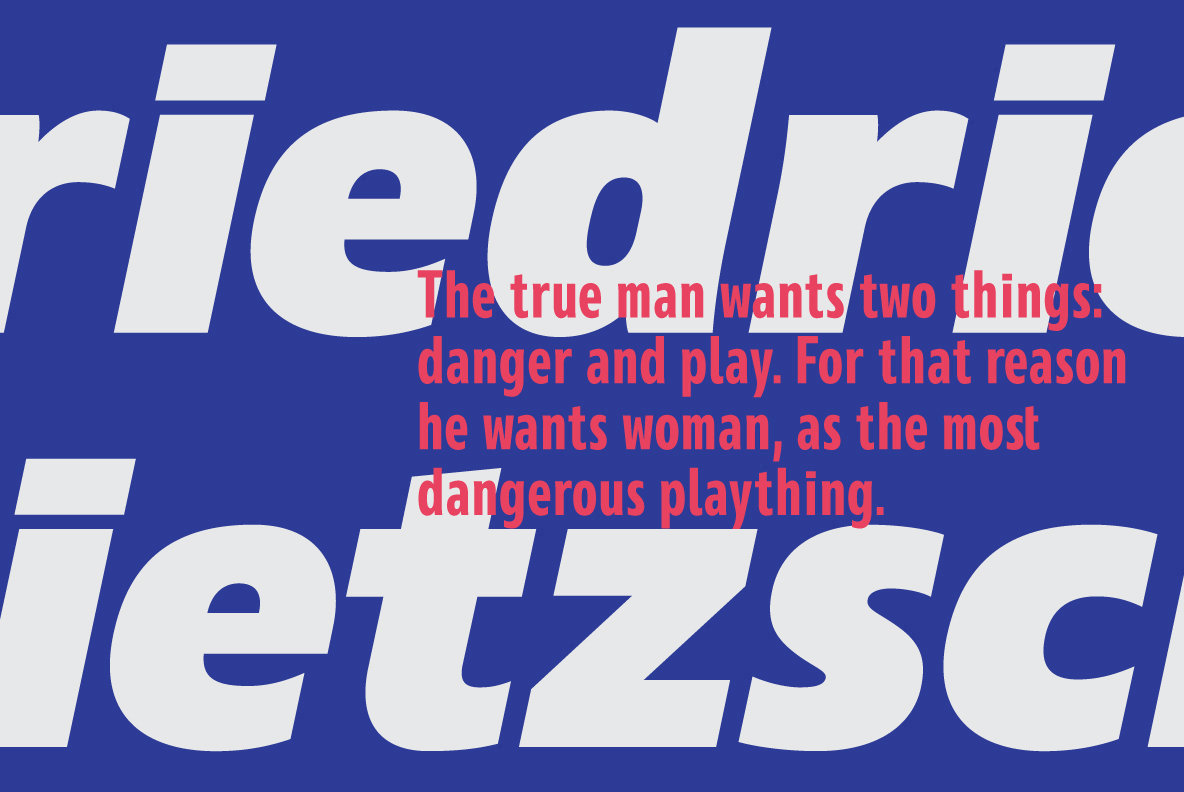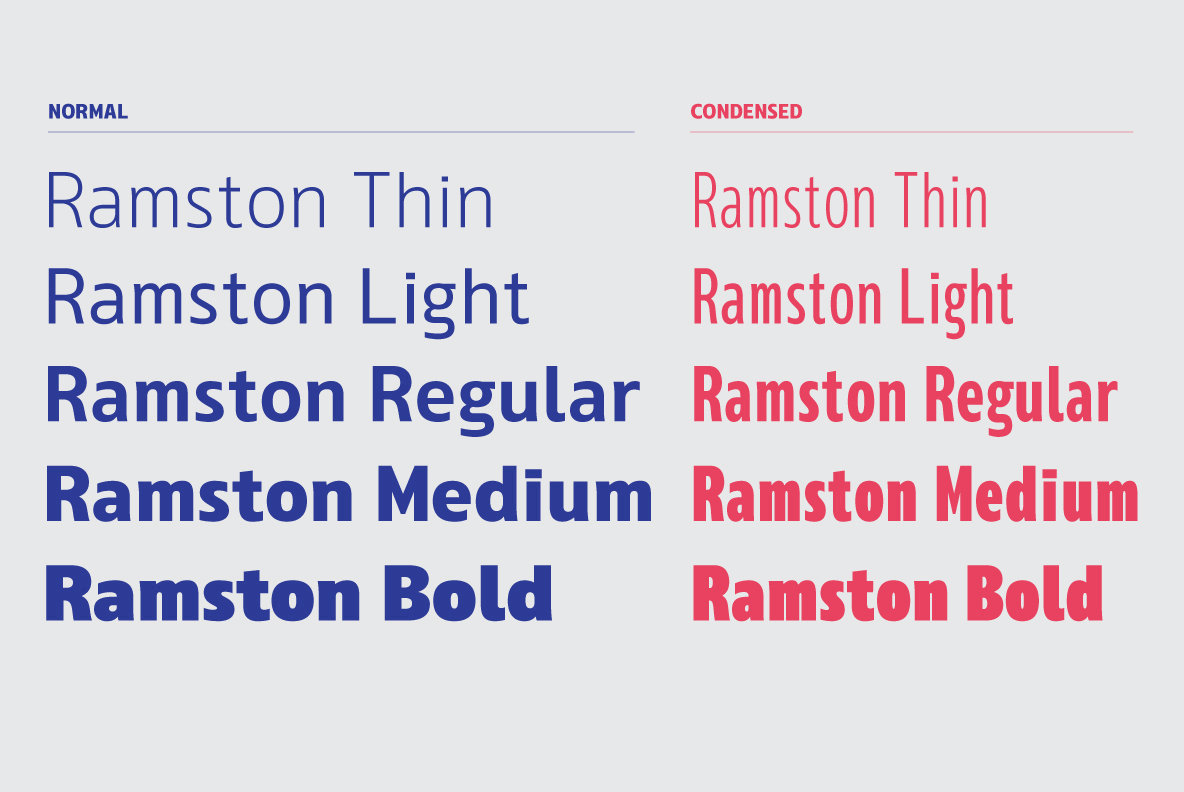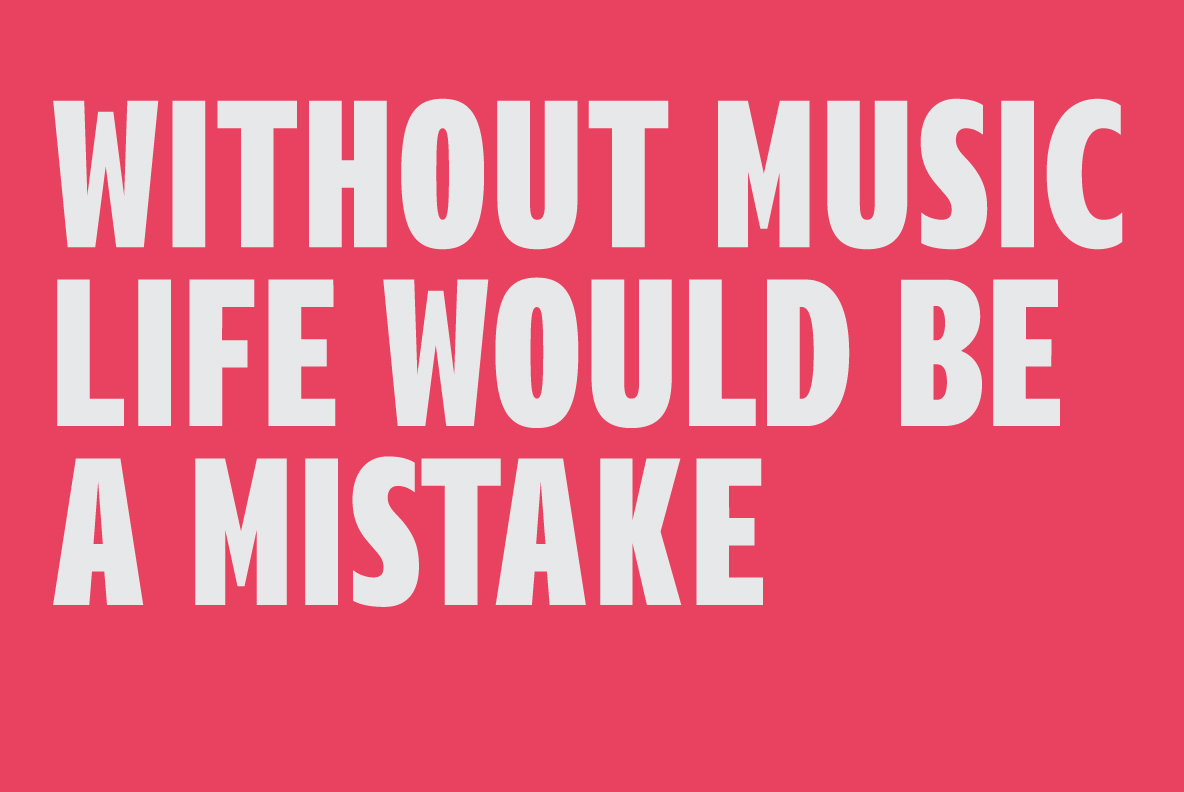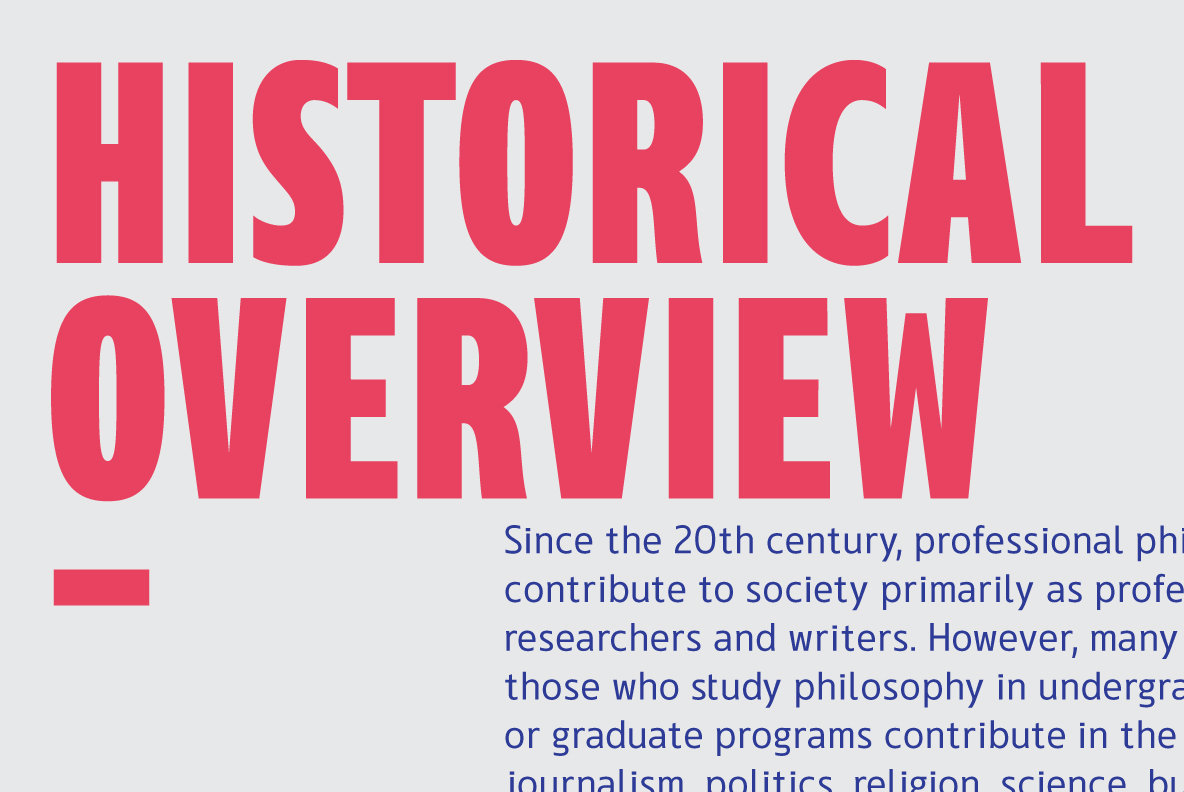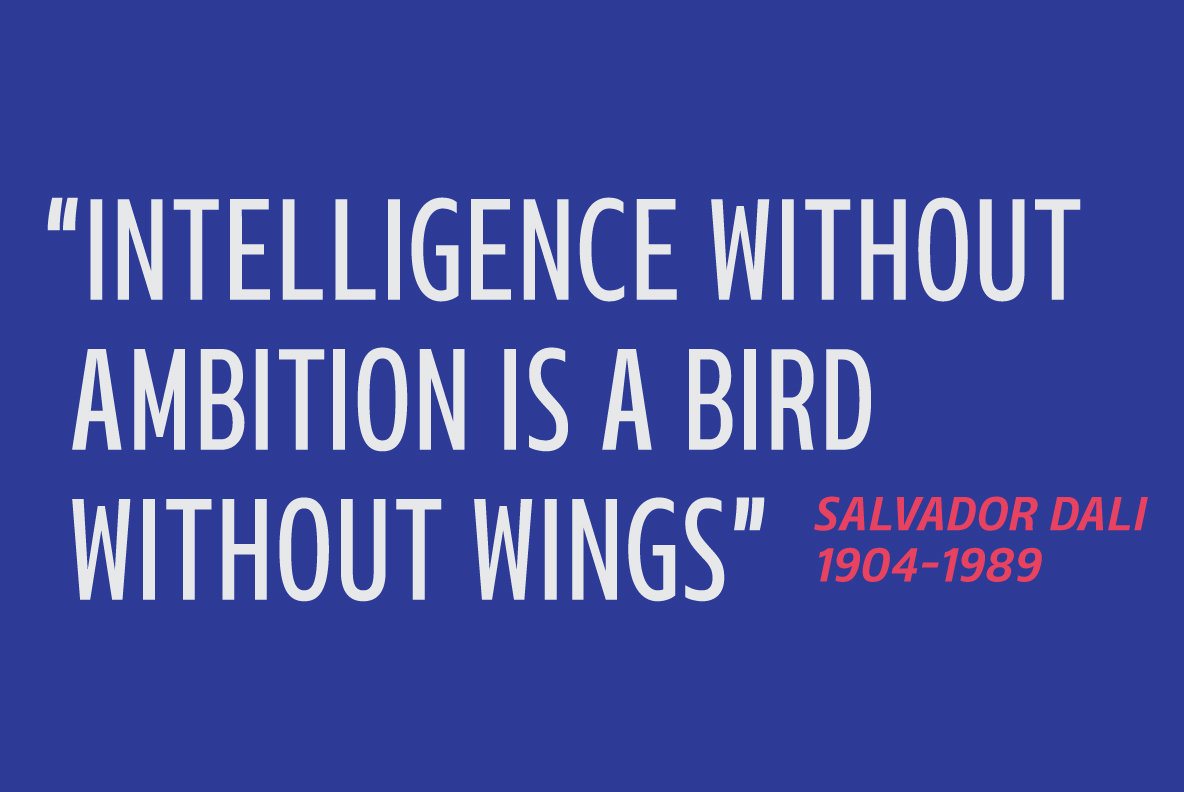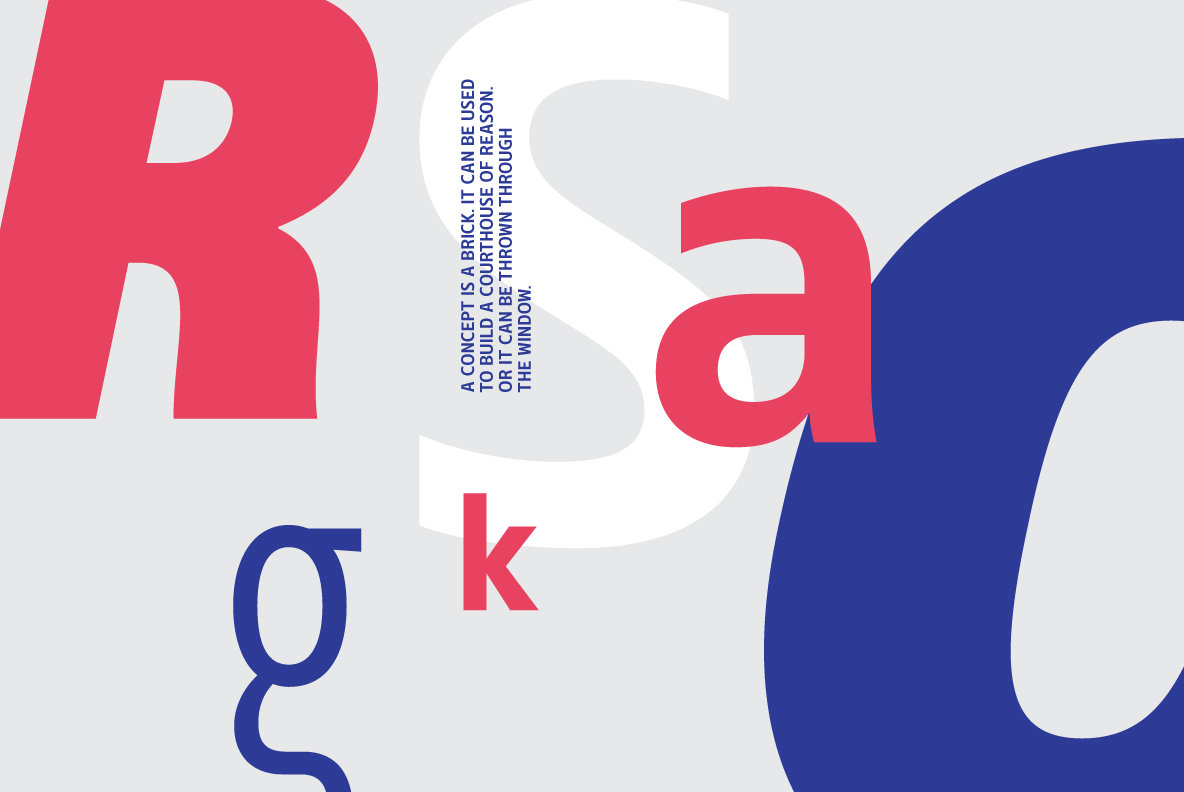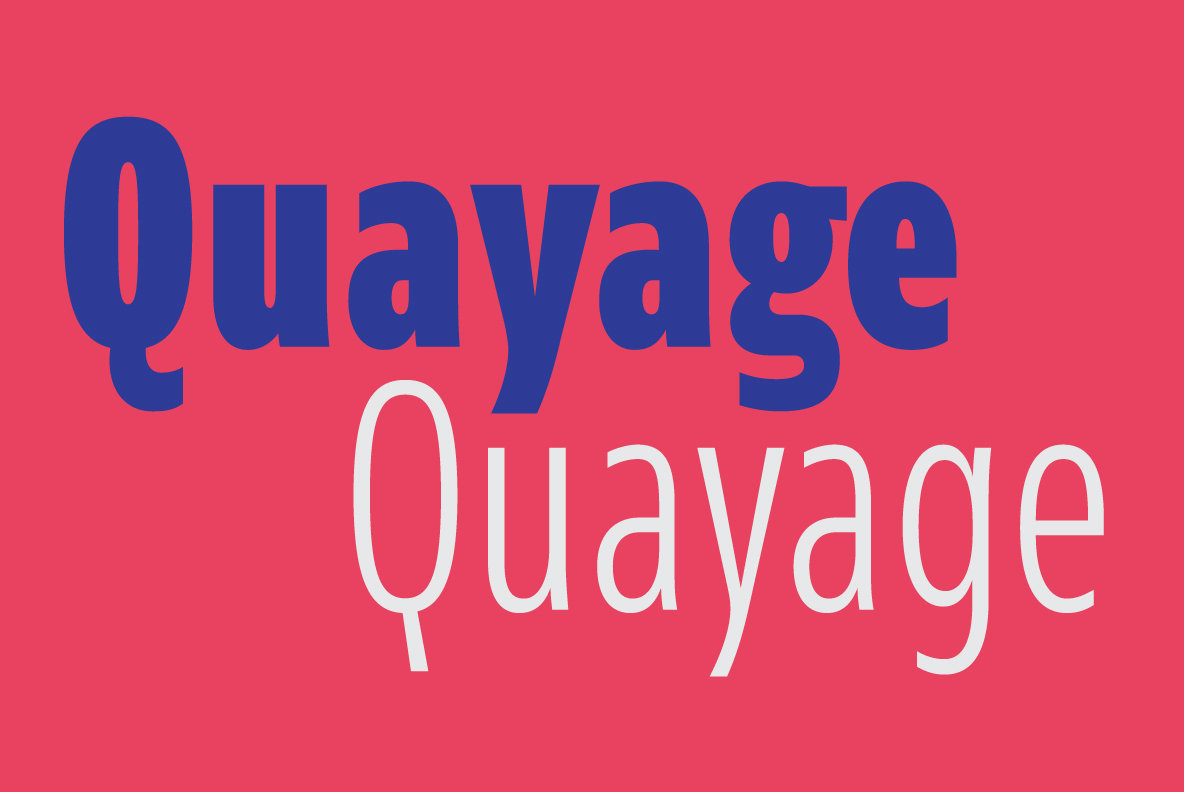
Ramston Font
Ramston is a humanist sans serif typeface of 20 fonts in total — a normal and a condensed width in 5 weights with matching italics. The condensed version is designed for space-saving typography but with high legibility in mind. Ramston is an ideal font family for display, print, corporate identity, mobile devices, magazine cover, signage, and web design creation.